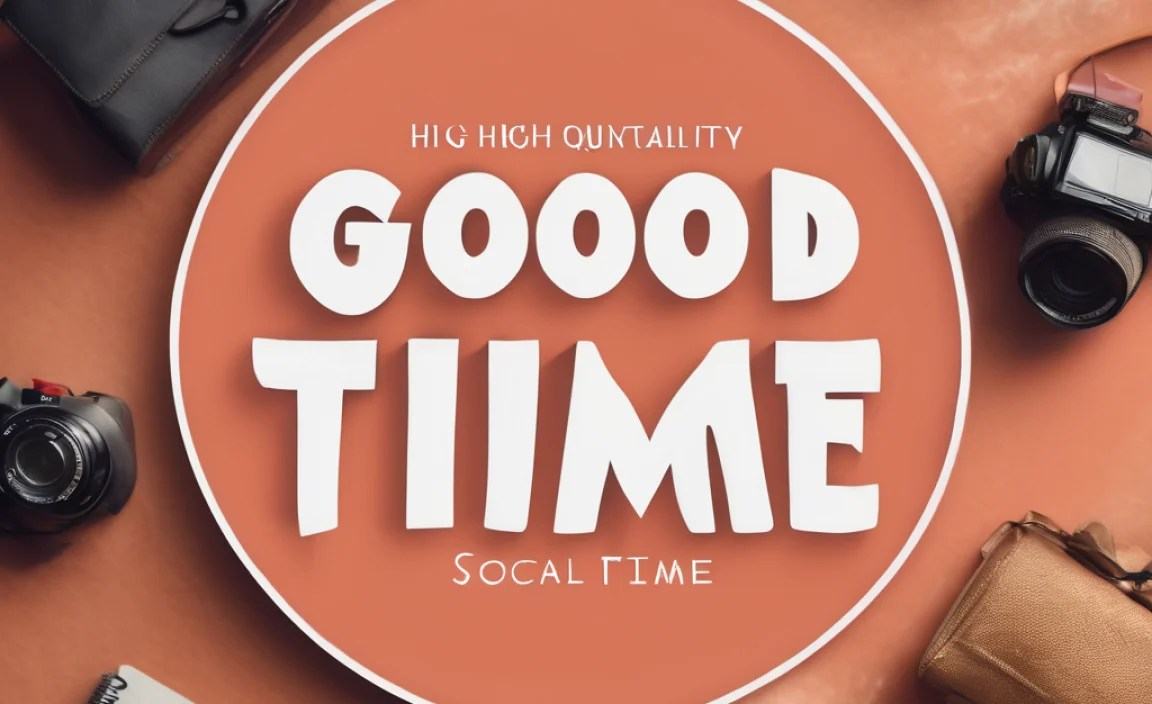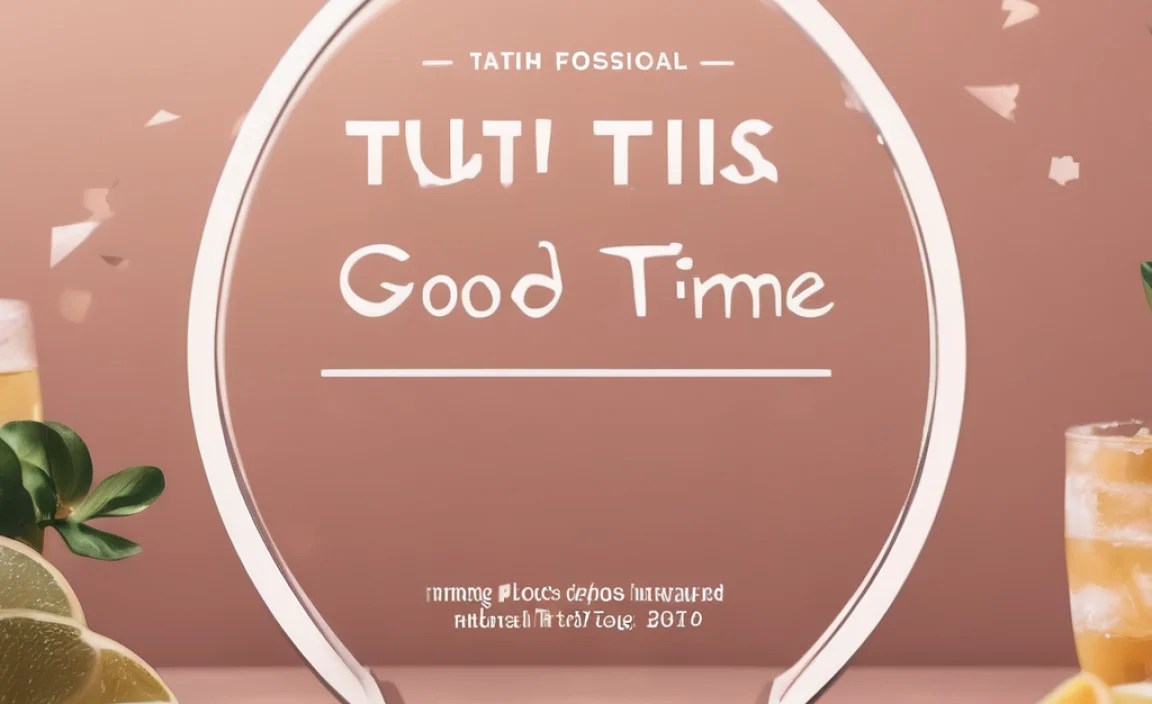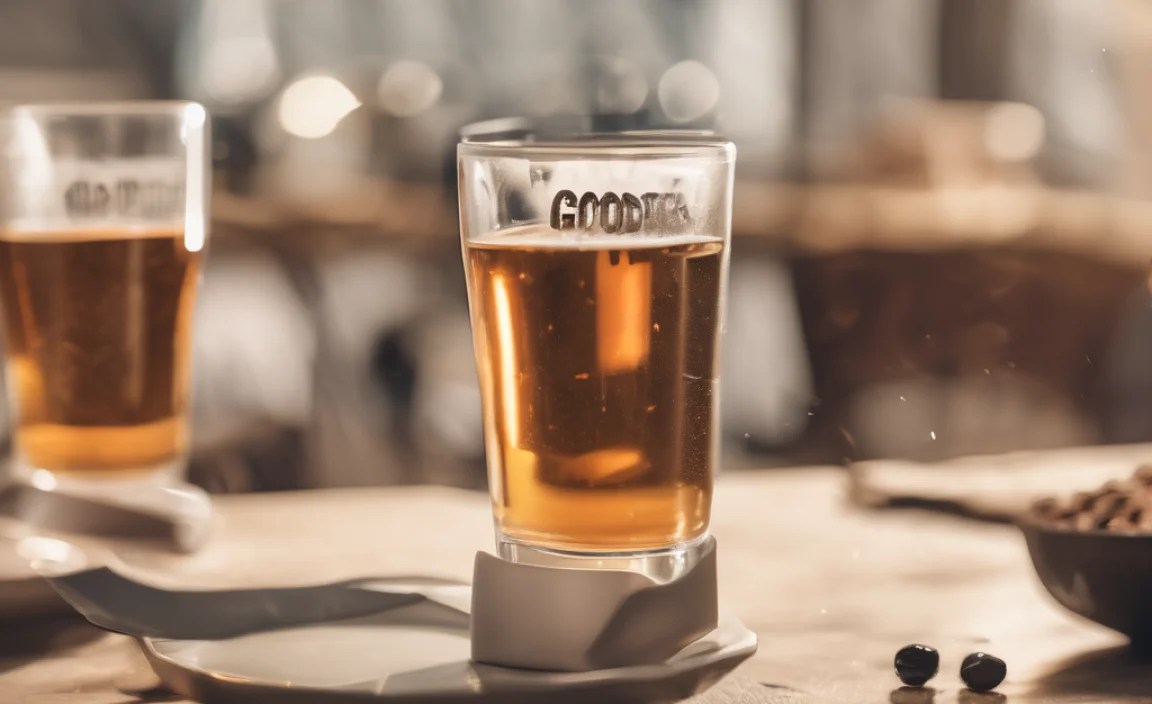
Have you ever wondered how fonts can make reading fun? Fonts can change the way we see words. Imagine reading a book with a very boring font. It might not be as exciting. But with a fun font, like A Good Time Font, everything looks brighter and happier. This font can make words look playful. Kids love when reading is fun!
Key Takeaways
- A Good Time Font makes reading more enjoyable.
- It helps express fun and excitement in text.
- It is great for posters and invitations.
- Its unique style attracts young readers.
- Using fun fonts can boost creativity.
A Good Time Font: Perfect for Kids
A Good Time Font is not just any font. It is specially designed to make reading exciting for kids. With its playful curves and cheerful style, it quickly grabs attention. It turns any simple text into something that feels like a party. Teachers and parents can use it to make learning materials more appealing. When kids see text in this font, they feel like they are having fun rather than just reading. This helps them stay engaged and interested.
- Kids love colorful, vibrant fonts.
- Fun fonts make learning enjoyable.
- Reading becomes less of a chore.
- It helps hold children’s attention.
- It adds personality to simple text.
- Perfect for children’s books.
- Helps kids explore creativity.
Using A Good Time Font, teachers can create worksheets that feel exciting. It helps kids focus on the content with more interest. Imagine a spelling list or a math problem written in a fun, engaging font. Suddenly, those tasks seem less intimidating and more like a game. Kids are more likely to participate actively, making learning an enjoyable part of their day.
Fun Fact or Stats : Fonts can increase reading engagement by up to 20% in kids.
How Can Fonts Make Reading Fun?
Have you ever noticed that books for kids often use colorful fonts? That’s because fonts like A Good Time Font make reading feel less like work. Imagine reading a story about a jungle adventure. With the right font, the words can feel like they are jumping off the page. This keeps kids interested and encourages them to turn the page. When reading feels fun, kids are more likely to enjoy it and want to do it again.
Why Do Kids Love Playful Fonts?
Kids love things that are bright and colorful. Playful fonts add excitement to text. Imagine getting a birthday invitation written in a plain font. It might not feel very special. But in a playful font, it looks like the party has already started! Fonts can express emotion and excitement. They can make any message feel more important. This is why kids love fonts that are fun and different.
What Makes A Good Time Font Special?
A Good Time Font stands out because of its unique design. Its playful curves and bright style make it perfect for children. This font can turn ordinary text into something magical. Children who see this font think of fun and play. They associate it with good times and happy moments. This makes them more eager to read and learn.
Making Posters and Invitations Exciting
Using A Good Time Font for posters and invitations can make them pop! Kids love colorful signs and invites. They spark curiosity and excitement. Imagine walking into a classroom and seeing a bright poster. The playful font invites you to come closer and read it. It makes ordinary messages feel like special announcements. Teachers and parents can use this font to make every event feel like a celebration.
- Bold fonts catch the eye.
- Colorful designs hold attention.
- Playful fonts add energy.
- Kids feel excited to read.
- Posters become more engaging.
- Invitations feel personal.
- Great for school events.
Imagine sending out a birthday invite with a fun, lively font. It tells guests that this is not just any party, but a special one. The font sets the mood even before the event begins. Kids look forward to such events because it promises fun. Using playful fonts makes everything feel more personal and memorable.
Fun Fact or Stats : Playful fonts can increase event participation by 15%.
How Do Fonts Set the Mood?
Fonts can change the entire feel of an event. A playful font tells kids to expect fun. It can make a simple event feel exciting. Imagine a reading club poster with a fun font. Kids will be curious and want to join. Fonts can create anticipation. They set the tone for what’s to come. This makes them crucial for event planning.
Why Are Fun Fonts Important for Kids’ Events?
Kids remember events that are special. Using a fun font makes invites and posters memorable. They make kids feel like they are part of something exciting. Imagine a field day poster with a boring font. It wouldn’t feel exciting. But with a fun font, it looks like an adventure. This makes kids excited and eager to join.
Can Fonts Influence Creativity?
Yes, fonts can spark creativity. They encourage kids to think outside the box. Imagine working on a school project with a playful font. It gives ideas a boost. Kids feel inspired to add their touch to the project. Fonts can set creativity in motion. They provide that little push needed to get the creativity flowing.
Question: How does A Good Time Font enhance creativity?
Answer: A Good Time Font enhances creativity by encouraging playful thinking. It inspires kids to be creative and express themselves. The font’s fun design sparks imagination, helping kids explore new ideas and projects.
Question: Can A Good Time Font be used digitally?
Answer: Yes, A Good Time Font can be used digitally for websites and online learning. It adds a vibrant and engaging style to digital text. This makes online content more appealing to kids, encouraging them to explore and learn.